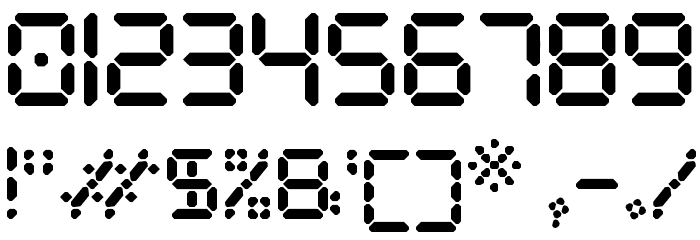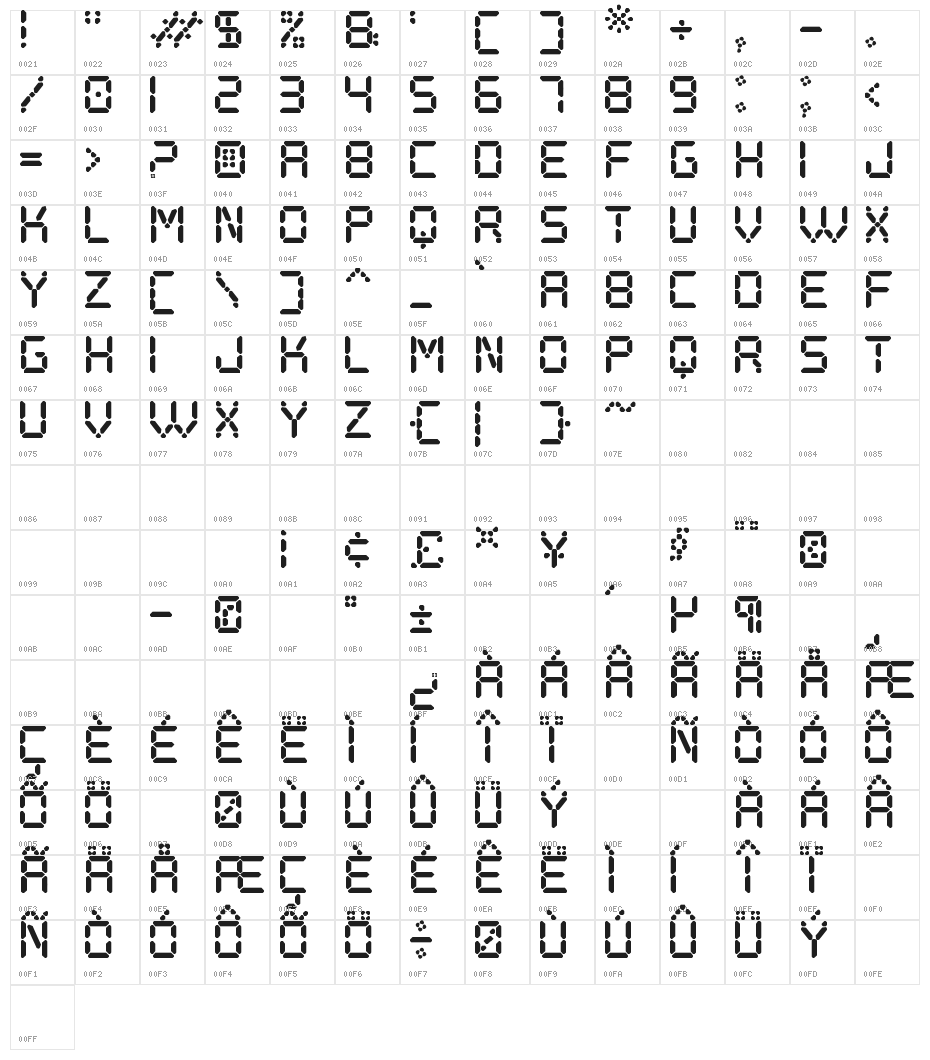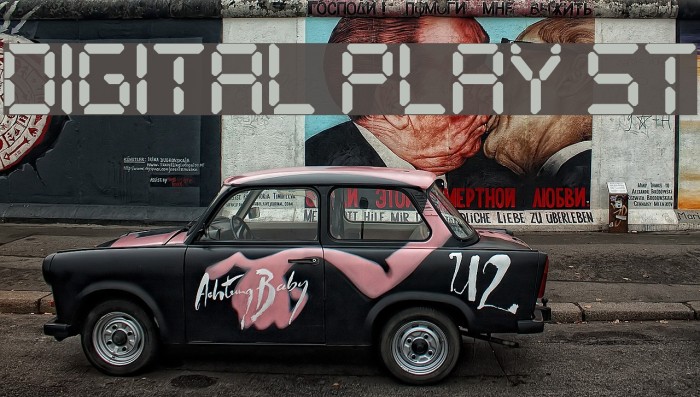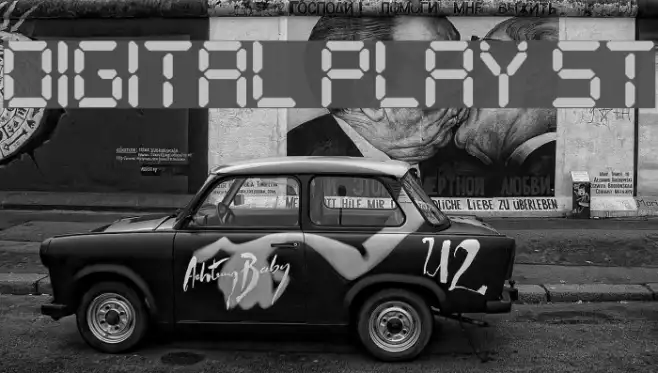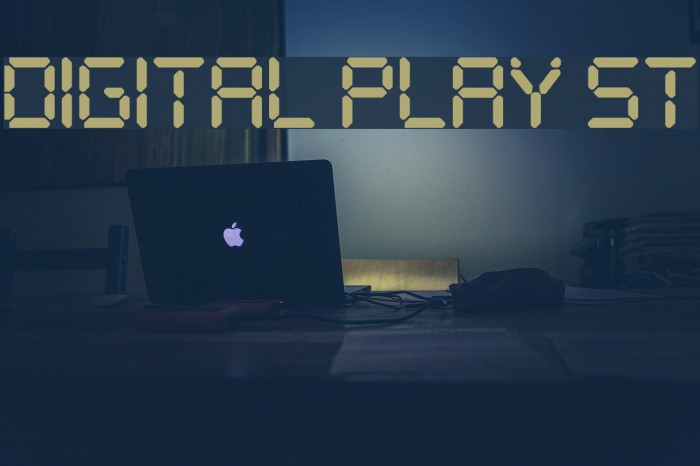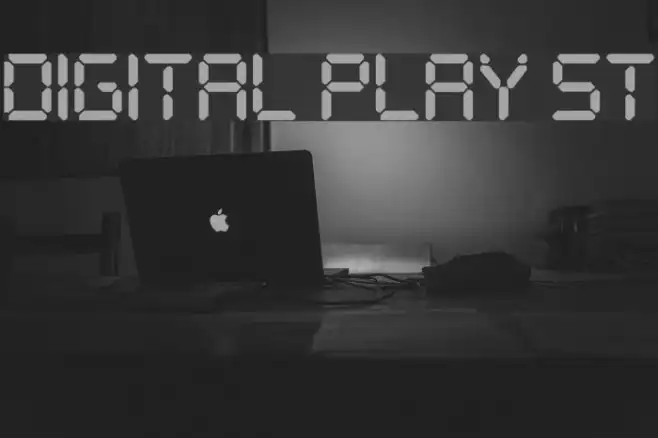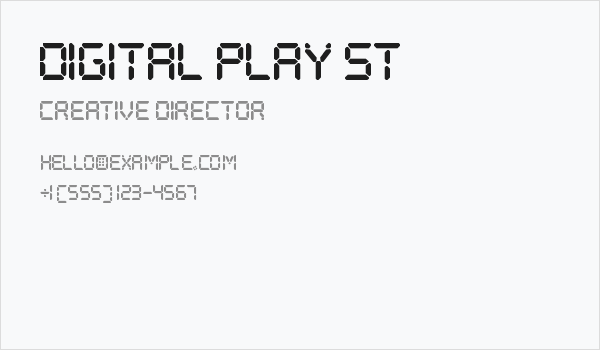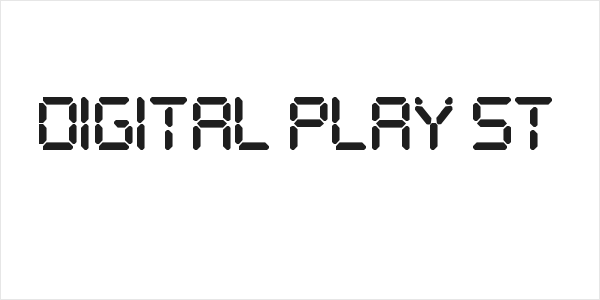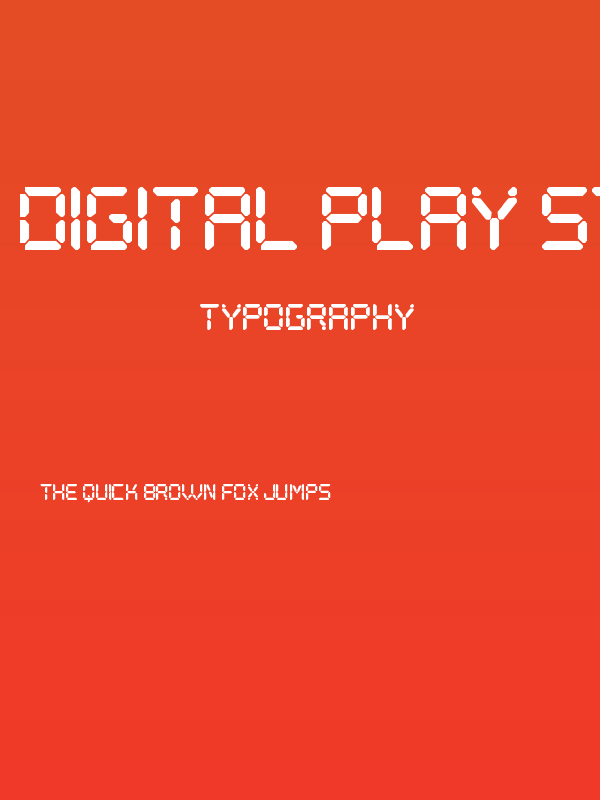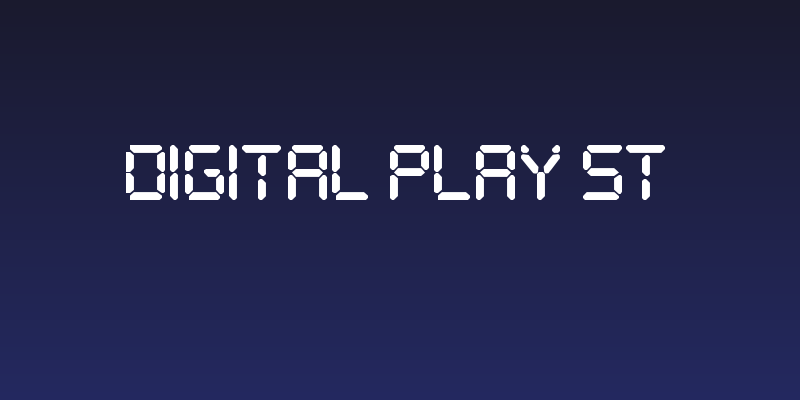
Digital Play St Font
Digital Play St Description
This font features a digital, futuristic style reminiscent of LED displays and digital clocks. Each character is constructed with a series of geometric shapes, primarily rectangles and circles, giving it a pixelated appearance. The design is uniform and structured, with consistent line thickness throughout. The characters are bold and clear, making them highly legible even at smaller sizes. This font conveys a sense of modernity and technology, ideal for projects that require a digital or tech-savvy aesthetic.
| Use Case | Headlines, Logos, Digital displays |
| Proposed Projects | Ideal for digital interfaces, tech branding, video game design, and futuristic-themed projects. |